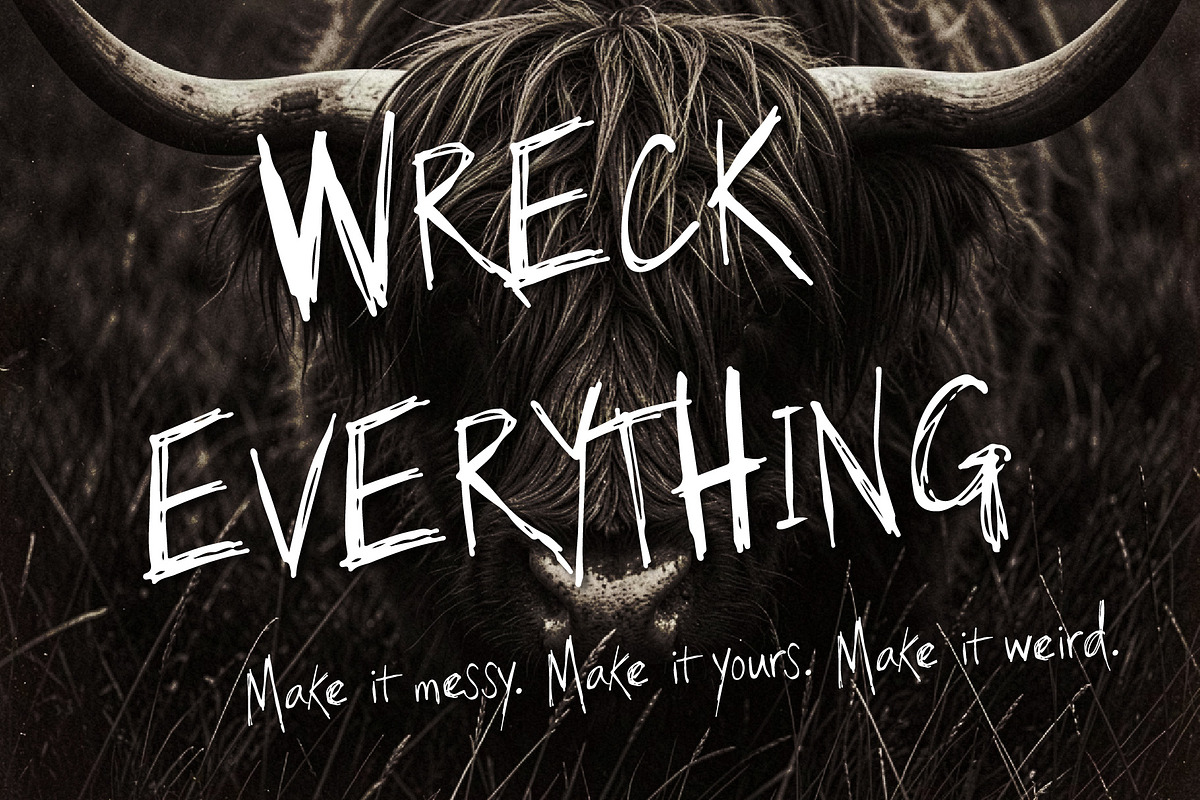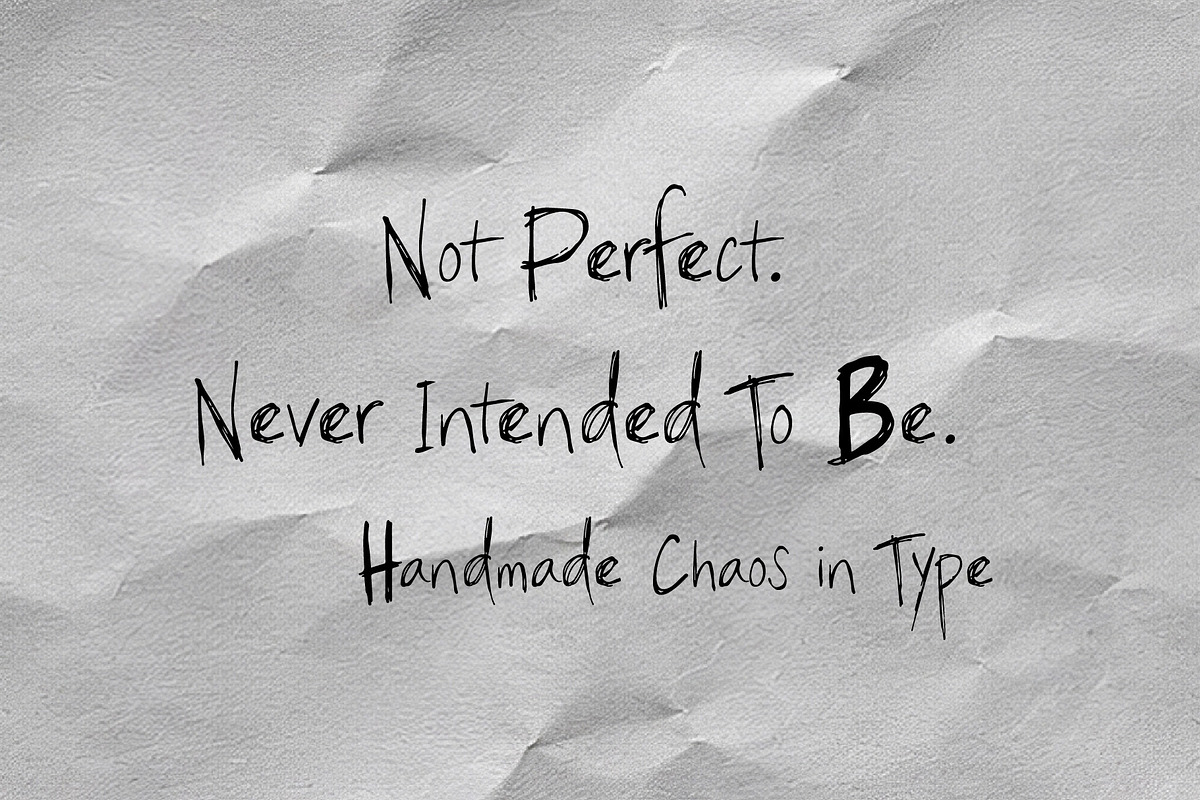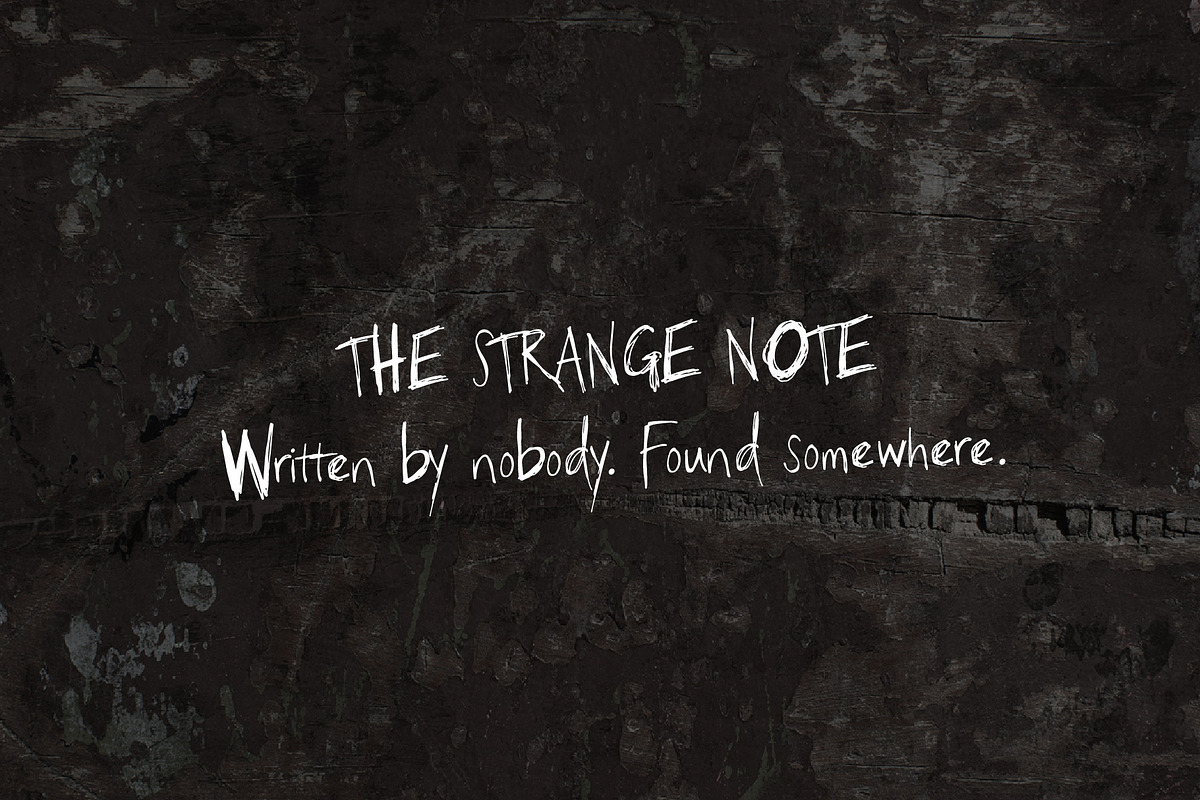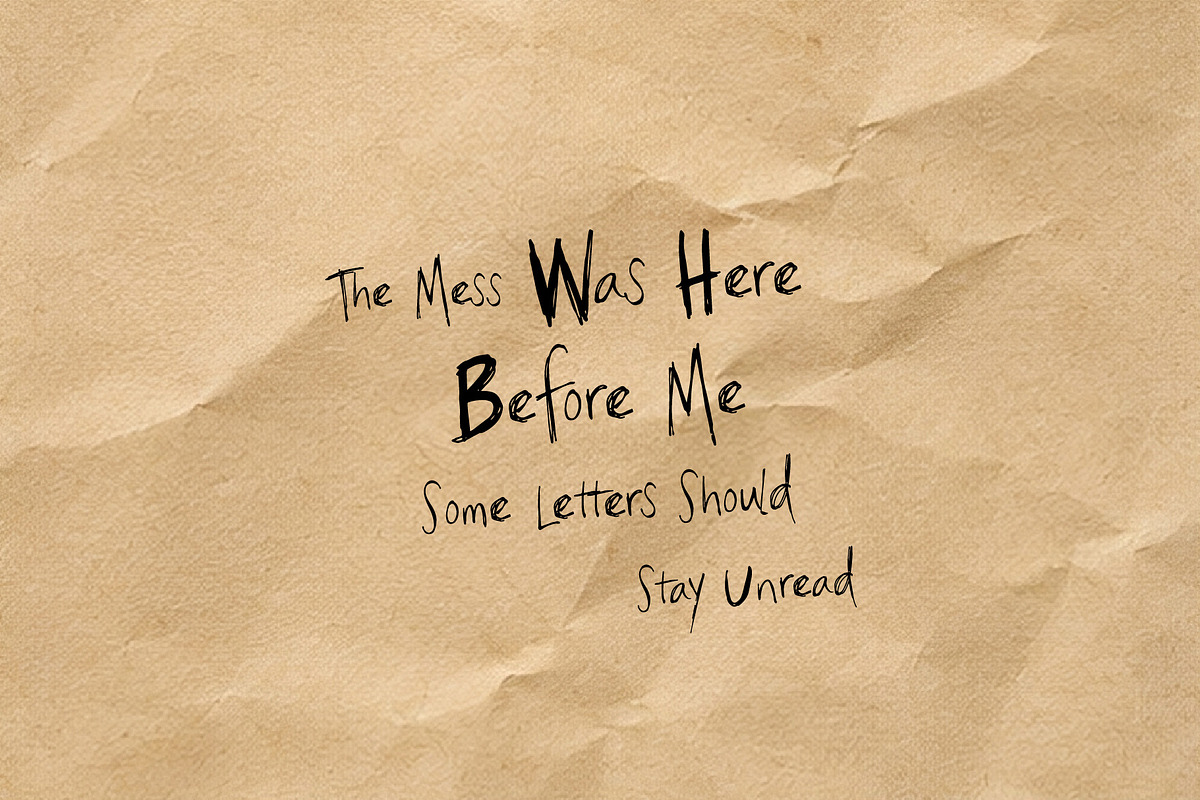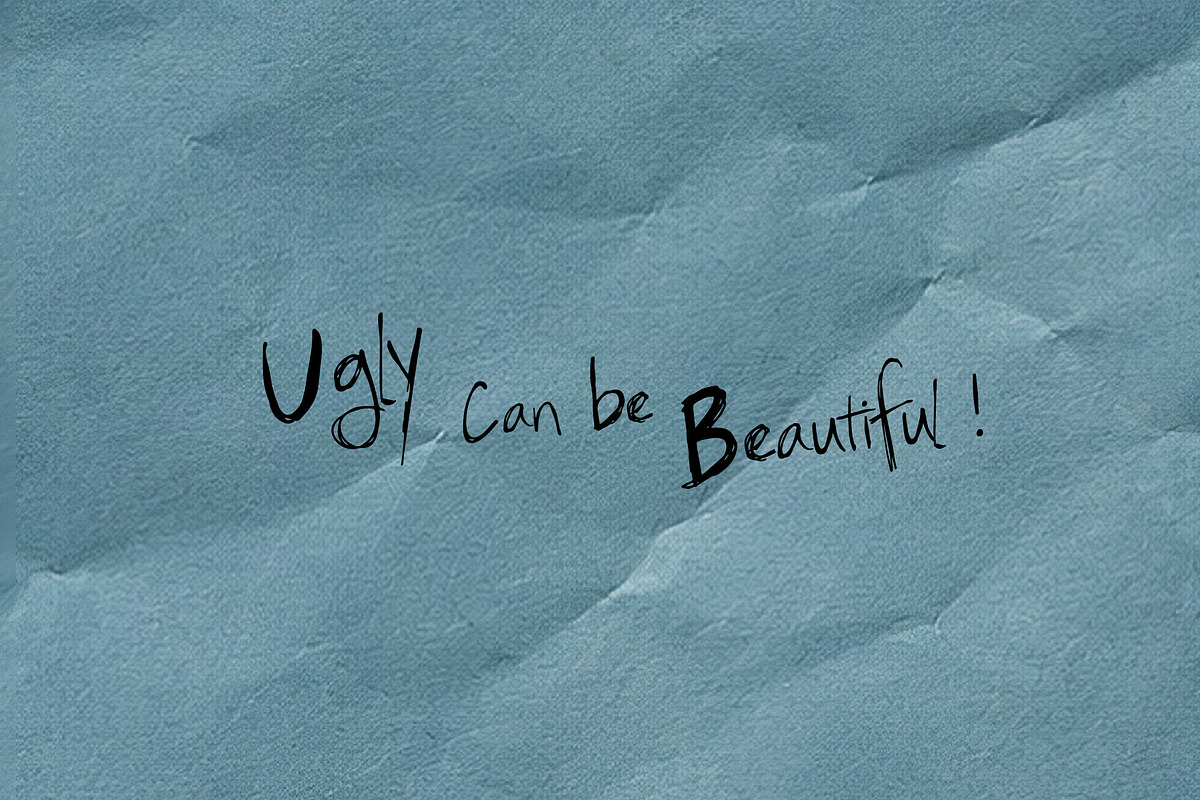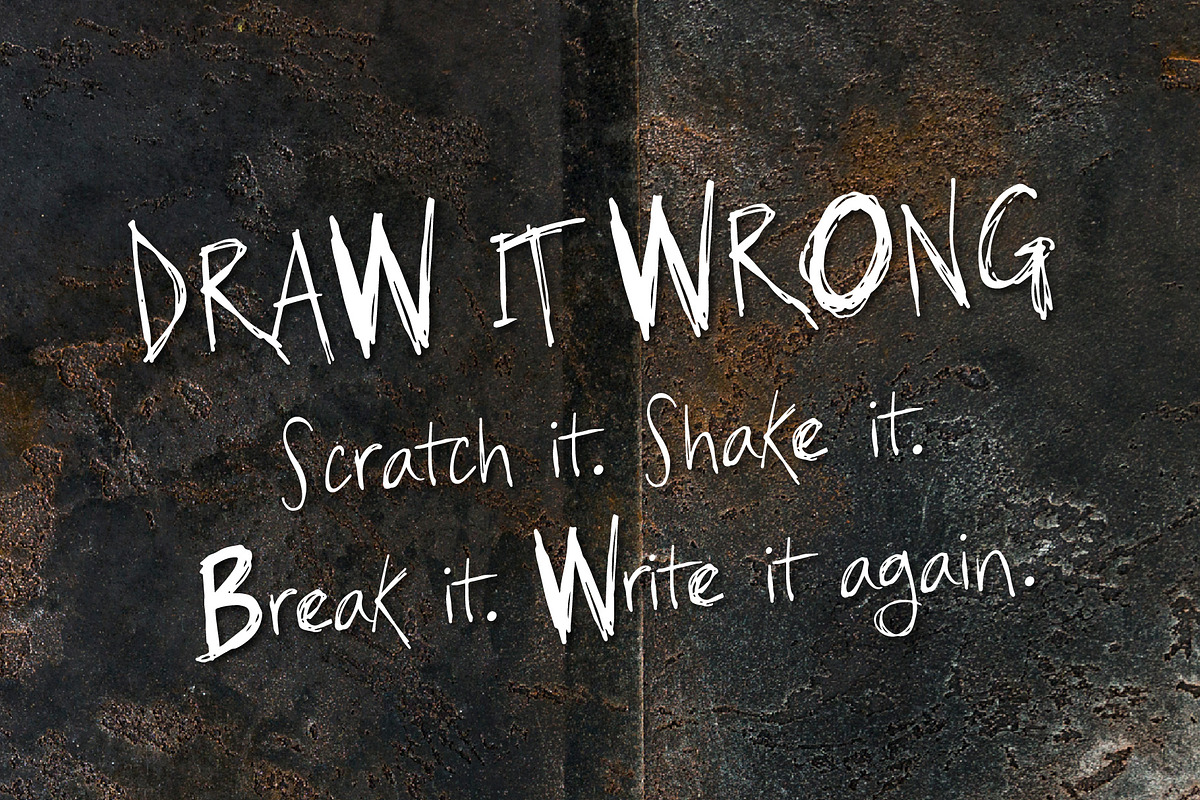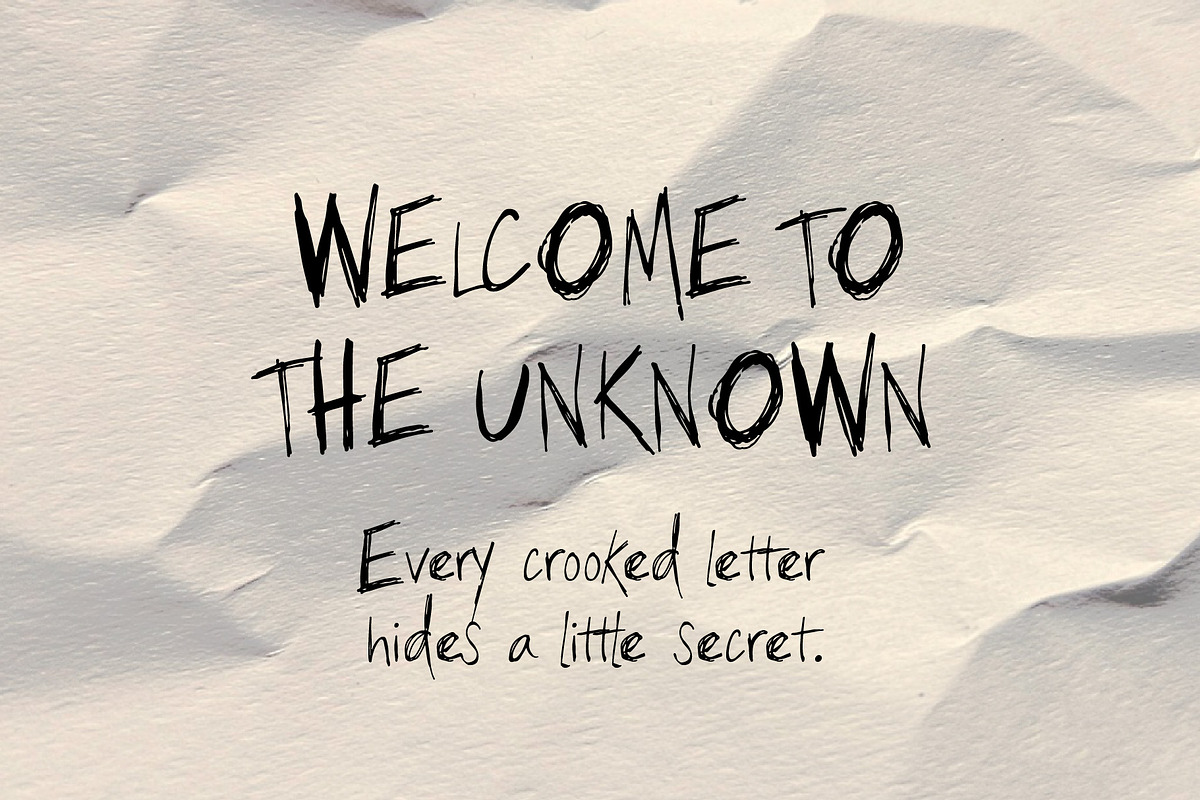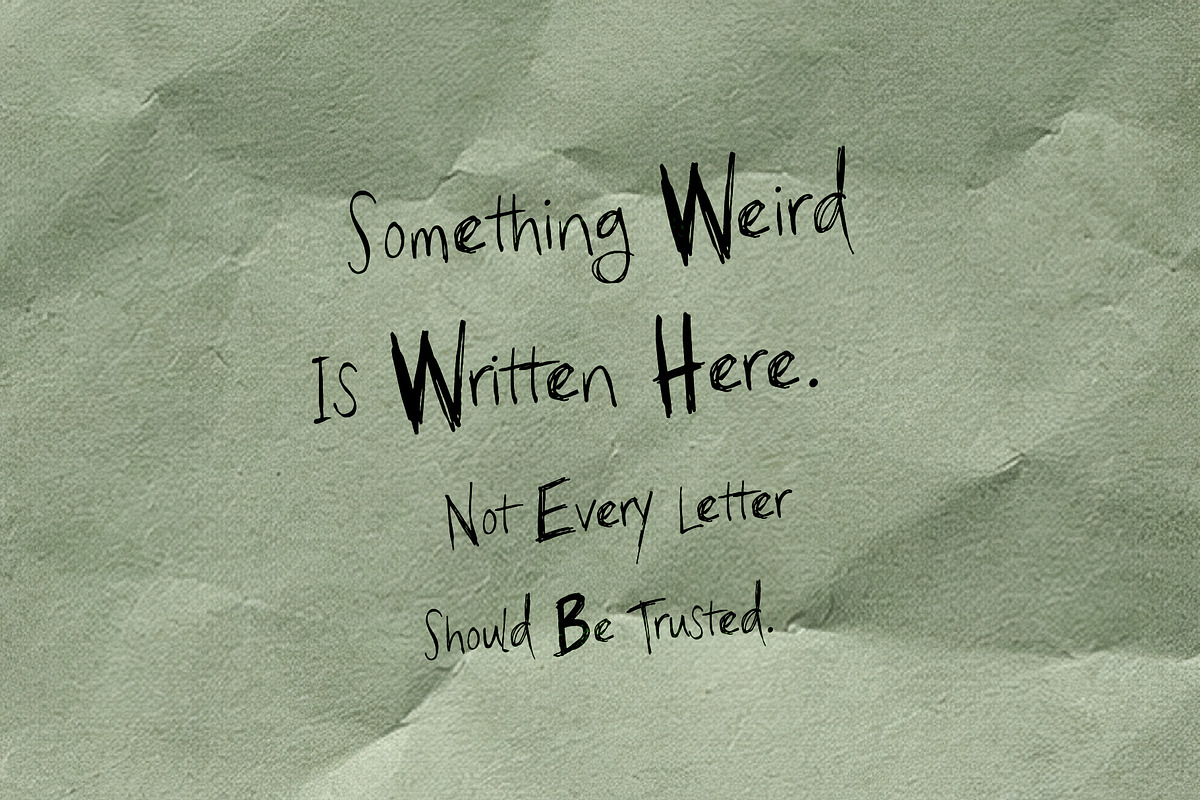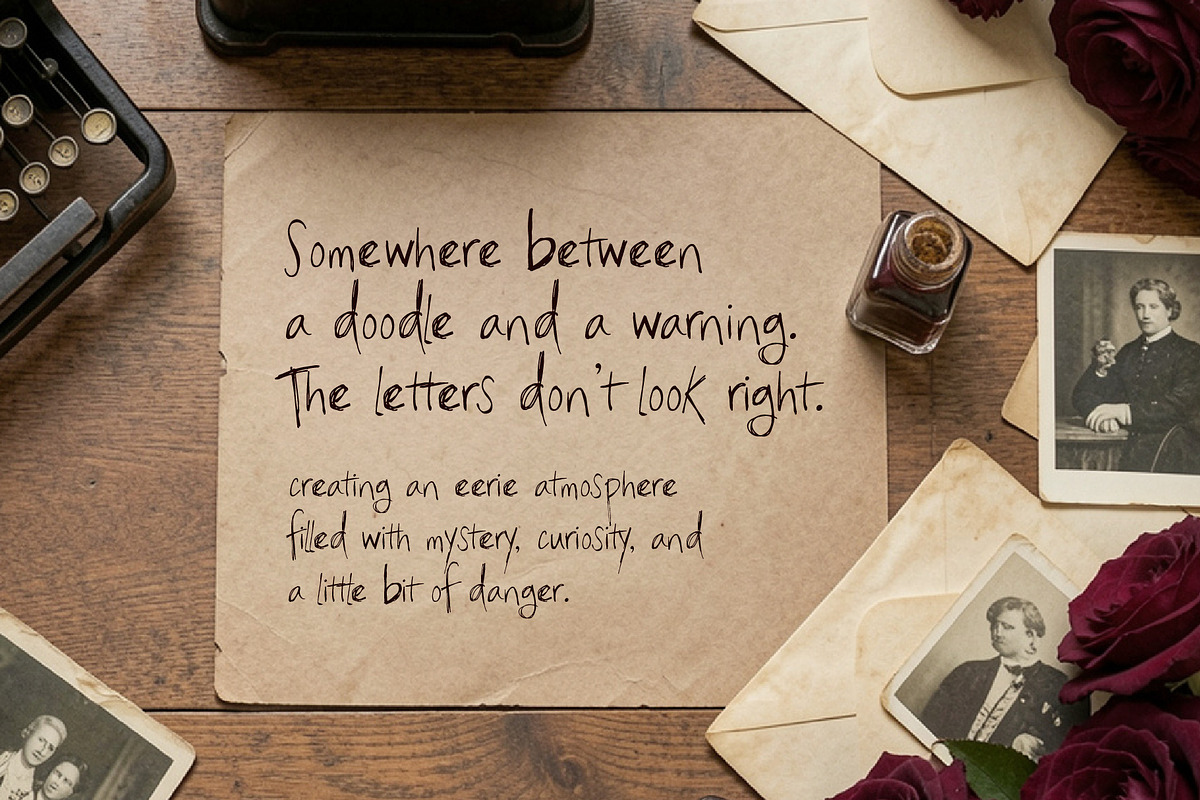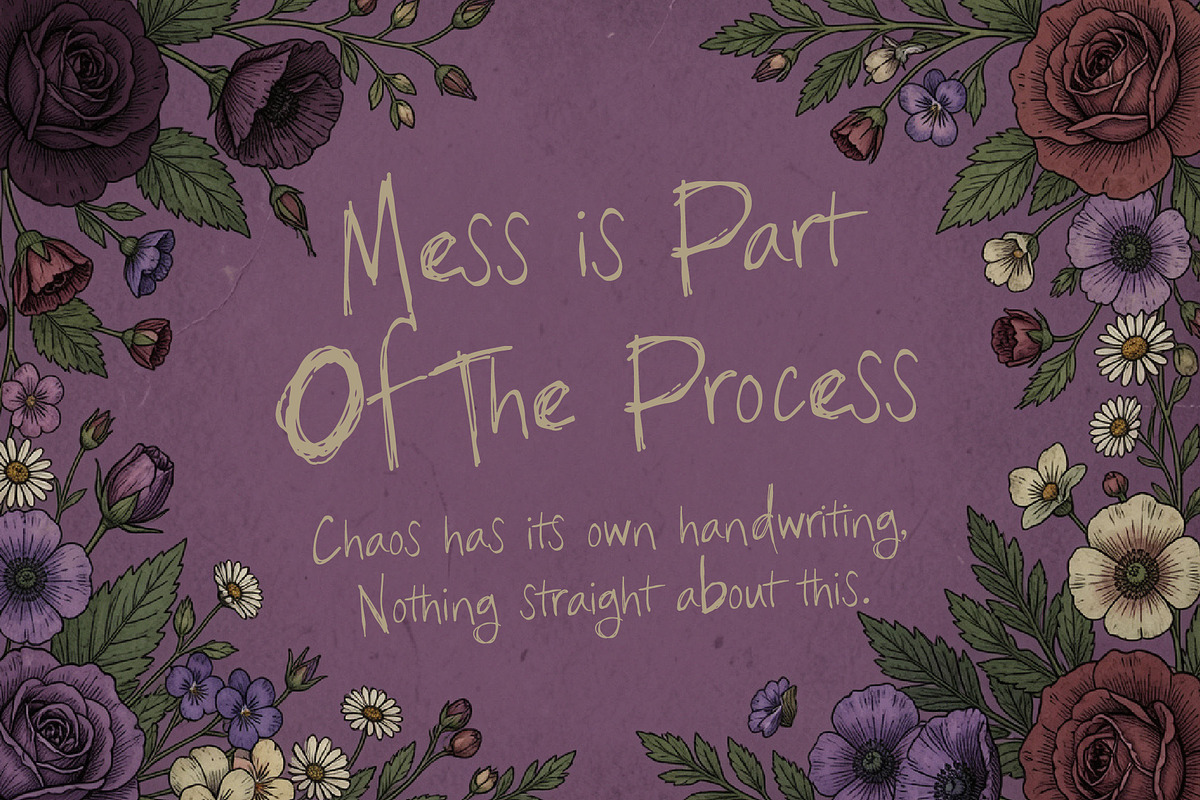
Wreck Back Crackerstype
Wreck Back Crackerstype is an ugly hand drawn display font where messy pencil scratches and rough chalk marks collide with chaotic, imperfect glyphs. Crooked shapes, uneven strokes, strange proportions, and unpredictable details give every letter a raw handmade personality.
With its weird and slightly unsettling character, this typeface works beautifully for horror posters, mystery titles, creepy stories, Halloween artwork, underground zines, dark branding, spooky packaging, album covers, kids' spooky projects, stickers, and experimental designs. It feels imperfect, mysterious, playful, and just a little bit wrong like a strange note scribbled on an old wall.